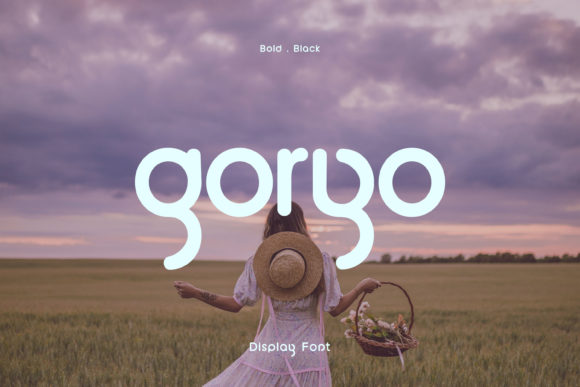
Goryo Font: Elevate Your Designs with a Modern and Clean Display Font
In the world of design, typography plays a crucial role in conveying messages, expressing creativity, and setting the tone for a brand or project. With the vast array of fonts available, finding the perfect one that embodies modernity, simplicity, and sophistication can be a daunting task. However, if you’re looking for a font that checks all these boxes and more, look no further than the Goryo Font.
What is Goryo Font?
Goryo is a clean and modern looking display font that has been making waves in the design community. Its minimalist and techno-styled aesthetic makes it an ideal choice for designers and crafters looking to add a smart and cool touch to their web designs, logos, and various other projects. The font’s sleek lines, precise curves, and uncluttered appearance make it a versatile tool for creating visually stunning and professional-grade designs.
Key Features of Goryo Font
- Clean and Modern Design: Goryo boasts a contemporary look that fits well with current design trends. Its clean lines and minimalistic approach ensure that your designs look fresh and up-to-date.
- Versatility: Whether you’re working on a website, logo, brochure, or any other design project, Goryo can be seamlessly integrated to enhance the visual appeal.
- Techno Style: The font’s techno style gives it an edge, making it perfect for projects that require a bit of an avant-garde or futuristic feel.
- Easy to Read: Despite its modern and somewhat minimalist design, Goryo remains highly legible, ensuring that your message is conveyed clearly and effectively.
Why Choose Goryo Font?
Choosing the right font for your project can significantly impact its overall success. Here are a few reasons why Goryo stands out from the crowd:
- Uniqueness: In a sea of similar fonts, Goryo offers a unique blend of modernity and simplicity that can set your designs apart.
- Professionalism: The font’s clean and techno style exudes professionalism, making it suitable for corporate and personal projects alike.
- Adaptability: Goryo can be used across various platforms and mediums, from digital interfaces to print materials, without losing its charm.
Goryo Font is a powerful tool for designers and crafters looking to infuse their projects with a modern, clean, and techno-inspired aesthetic. Its versatility, legibility, and unique style make it an excellent choice for a wide range of applications. Whether you’re aiming to create a stunning website, a captivating logo, or any other design project, Goryo is sure to elevate your work to new heights. So, why wait? Explore the possibilities with Goryo Font today and discover how it can transform your designs.